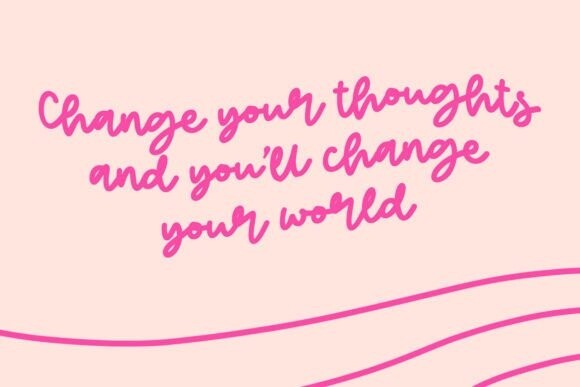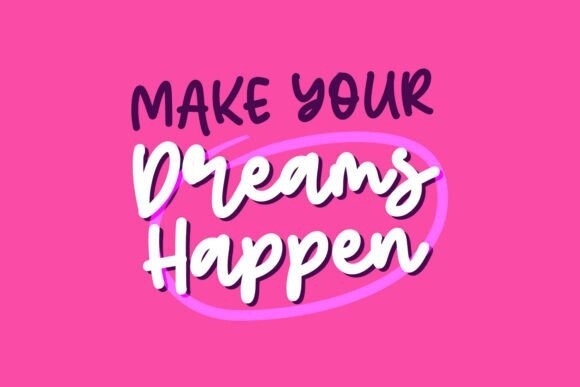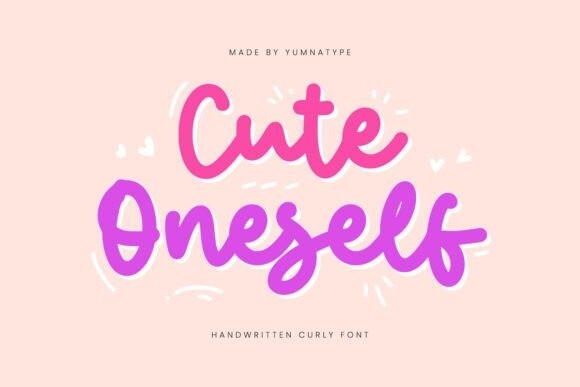
Cute Oneself Font
Designer: Yumna_Type
Cute Oneself Font is a delightful handwritten font designed to bring a playful and whimsical touch to your projects. Designed with curly letters that are seamlessly connected to each other, this font exudes charm and a sense of fun, making it perfect for creative and lighthearted designs.